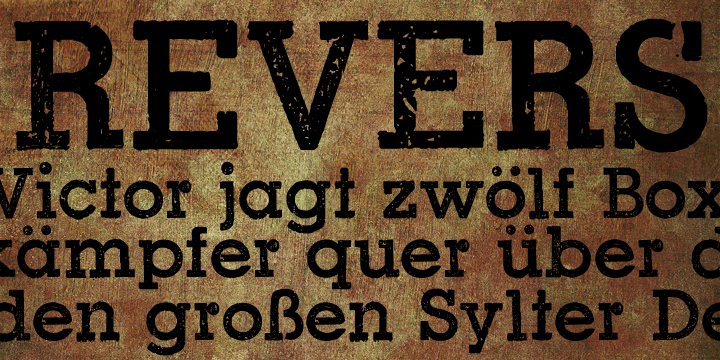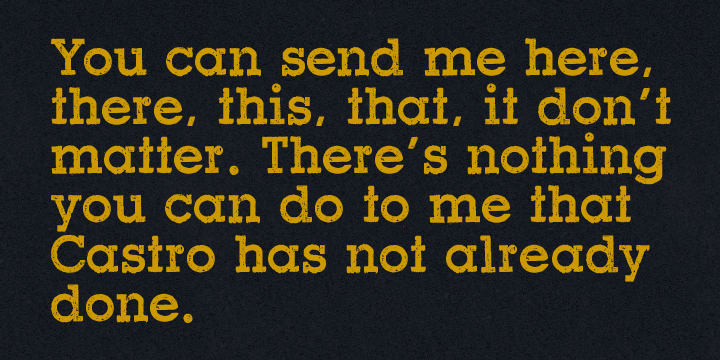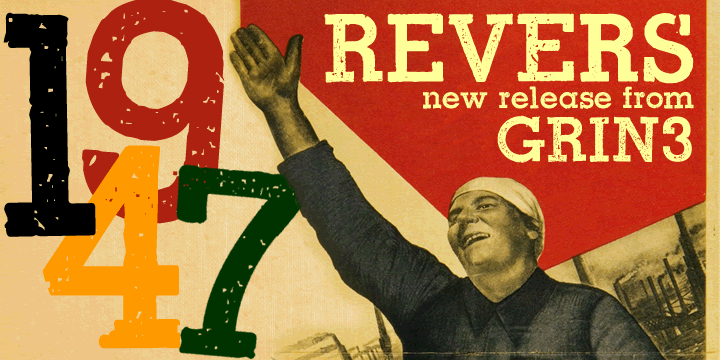
Revers is a grunge, slab serif and display slab font family. This typeface has four styles and was published by GRIN3 (Nowak).
Revers is a rough, grunge slab serif based on newspaper headlines from the 1950s.
Language support includes Western, Central and Eastern European character sets, as well as Baltic and Turkish languages.